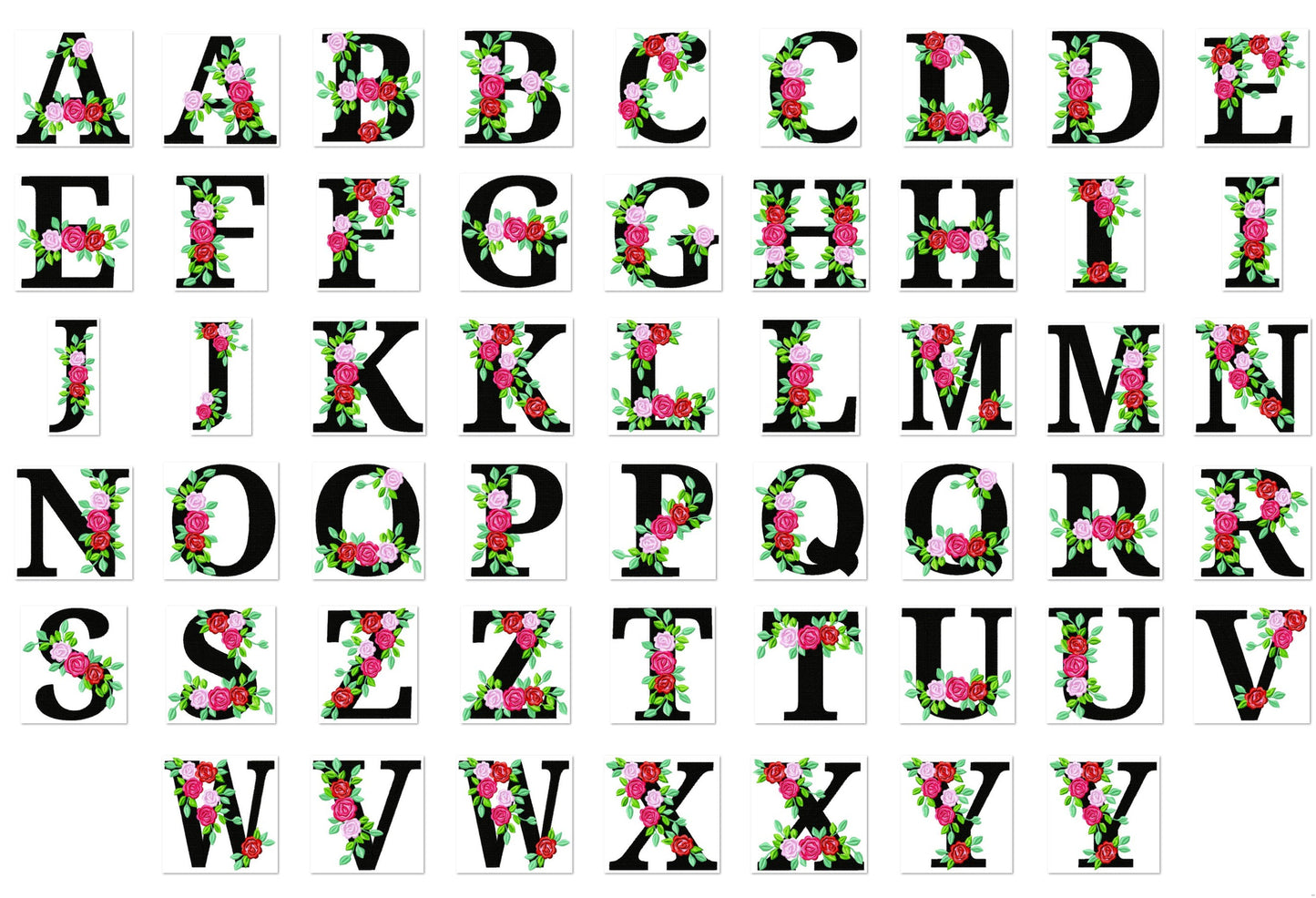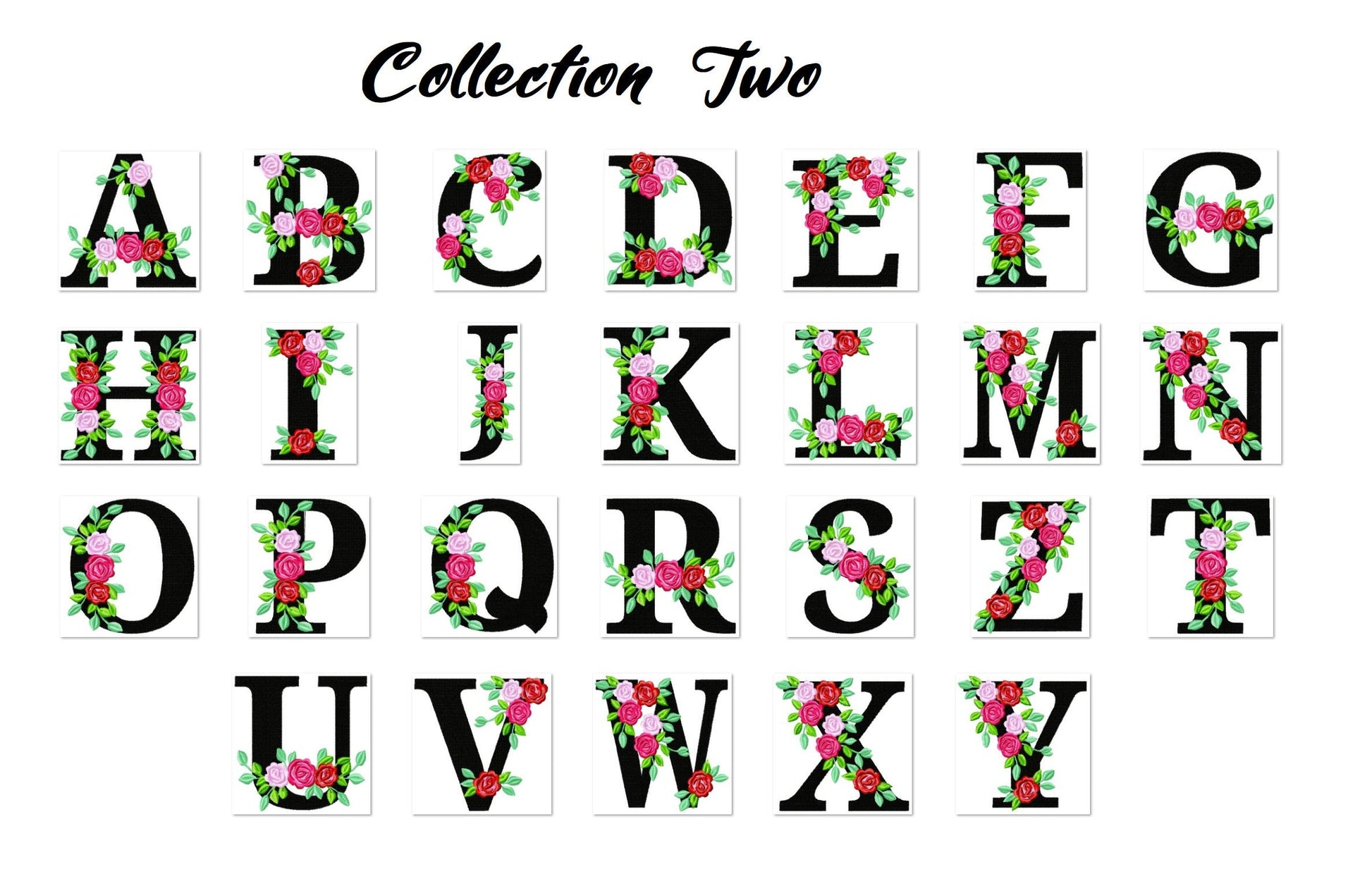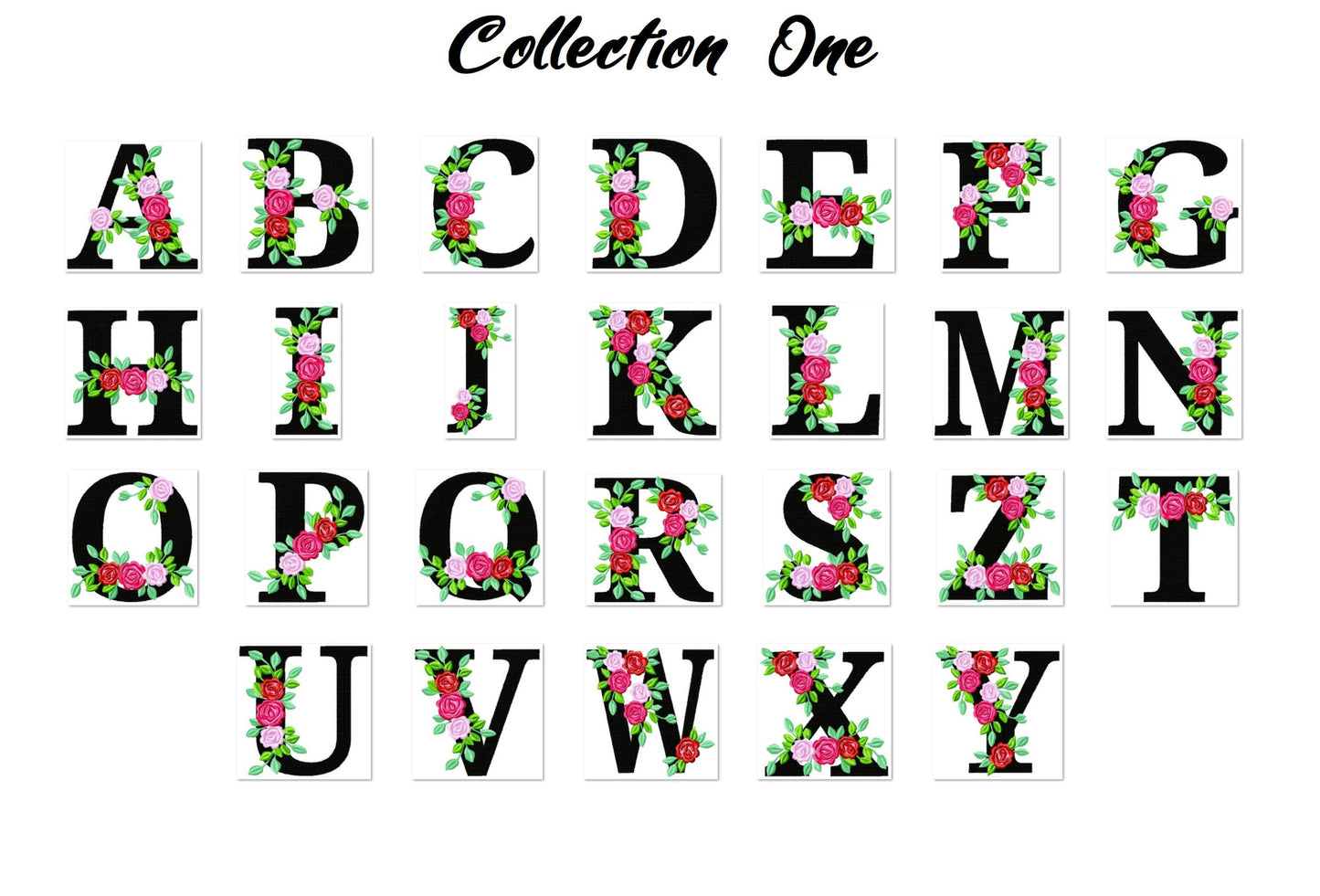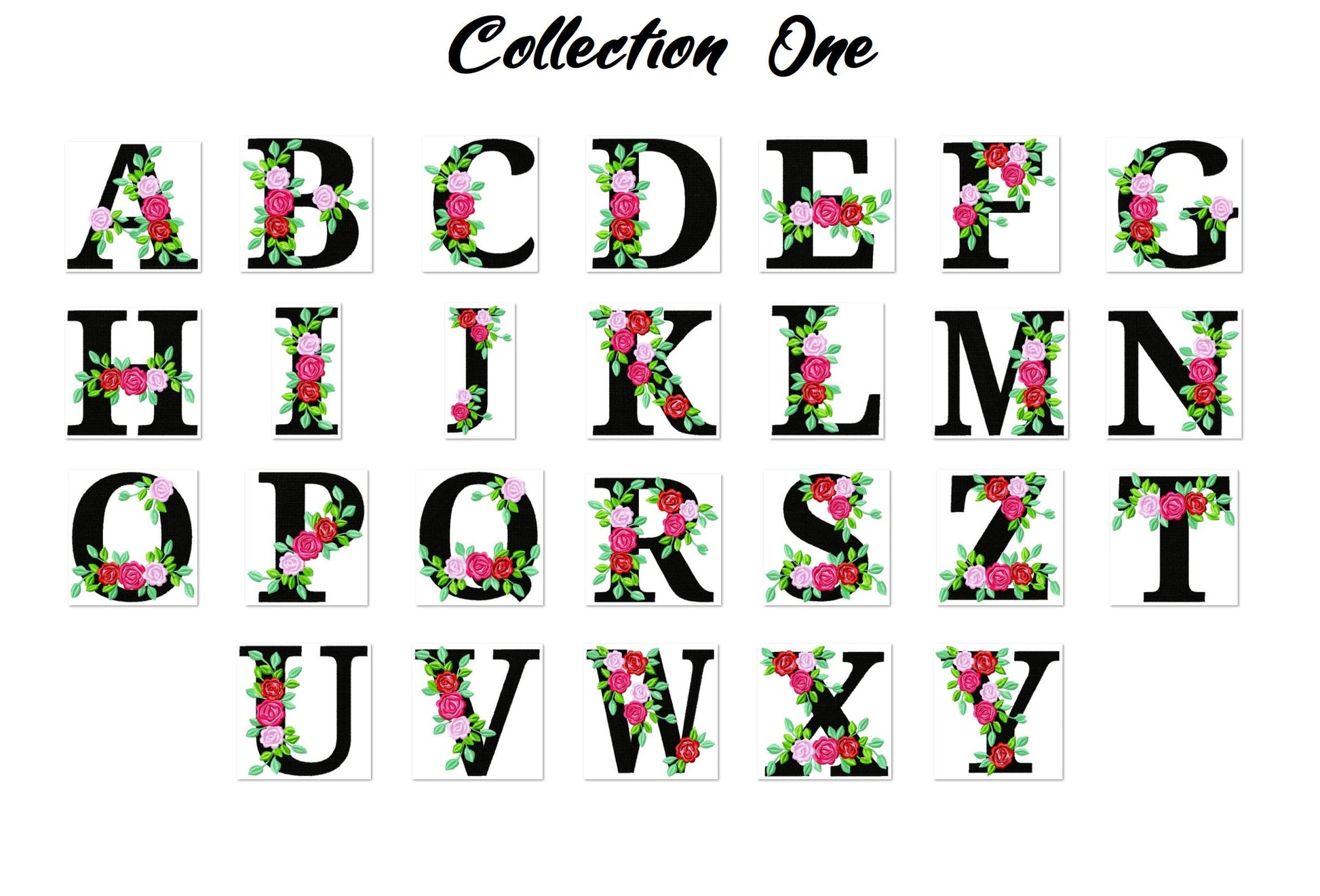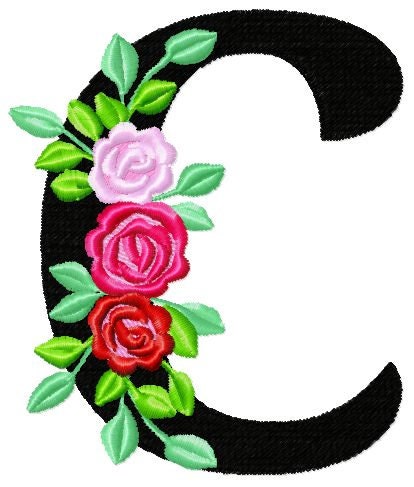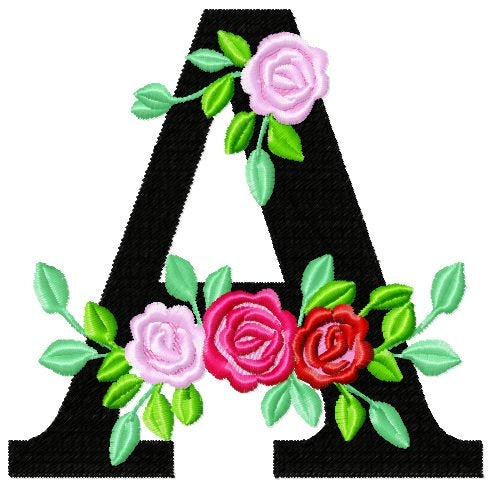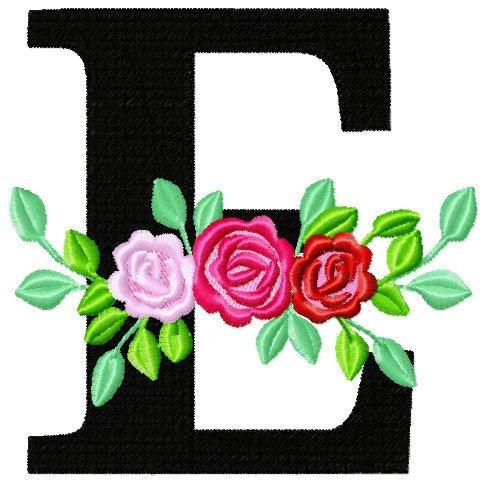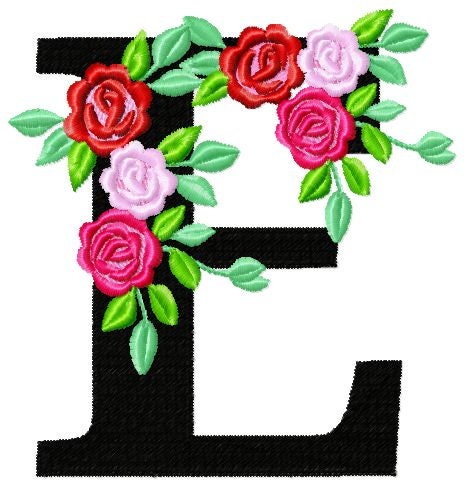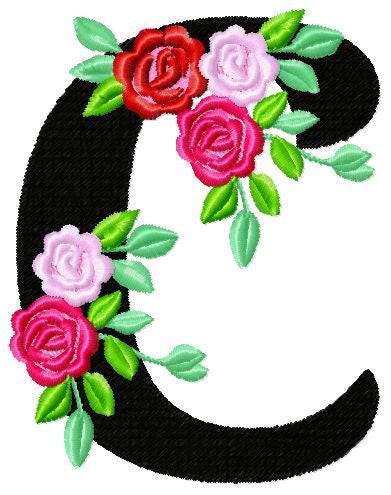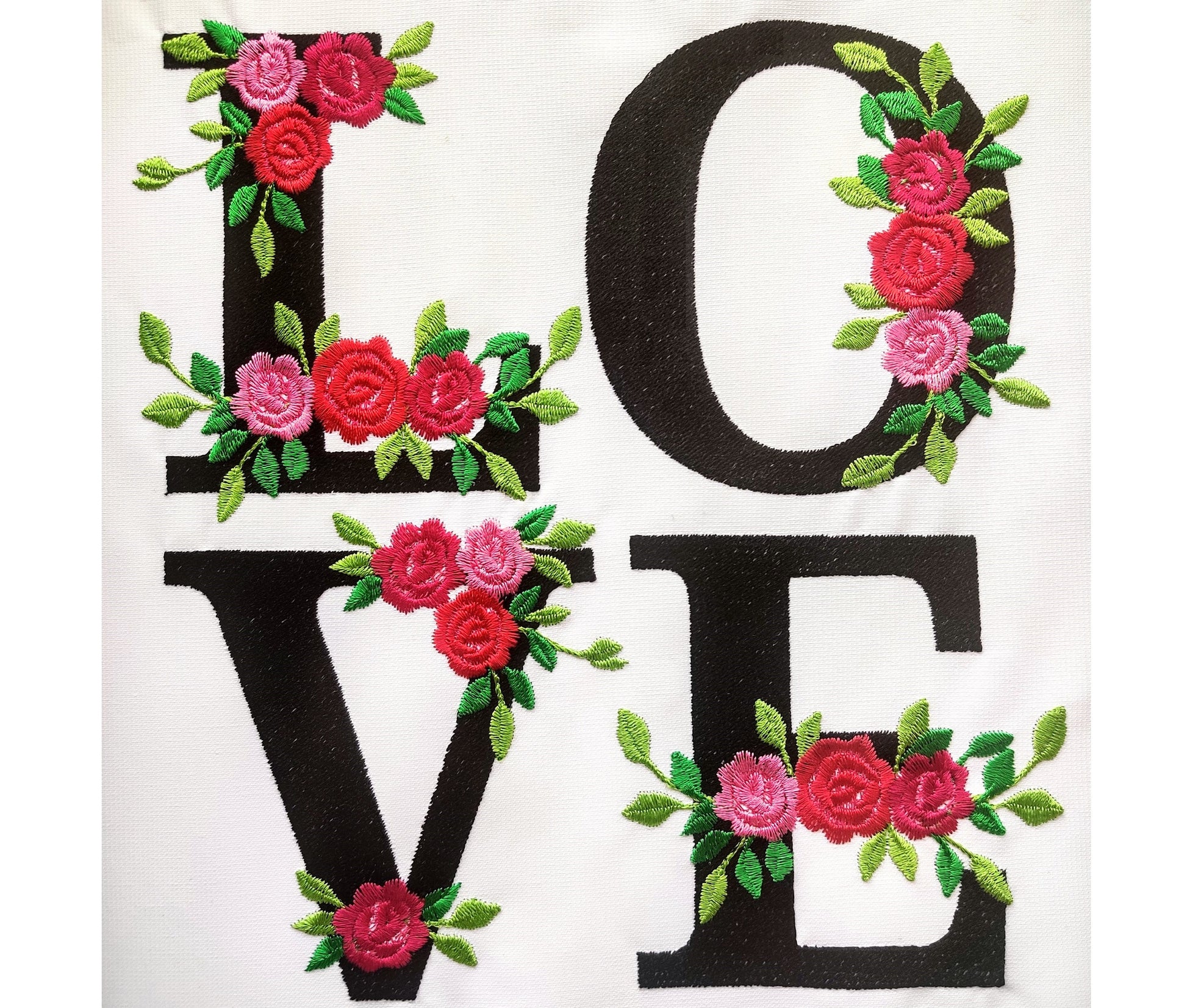
Or click to open the linkTwo rose flower alphabets with crowns of roses, for garden flags, pillows, names and monograms.
Letters A to Z come in two types with the flowers in different places, so names and words fit together nicely. Six sizes: 2, 3, 4, 5, 6 and 7 inches.